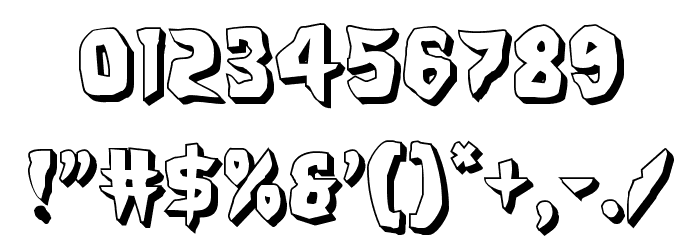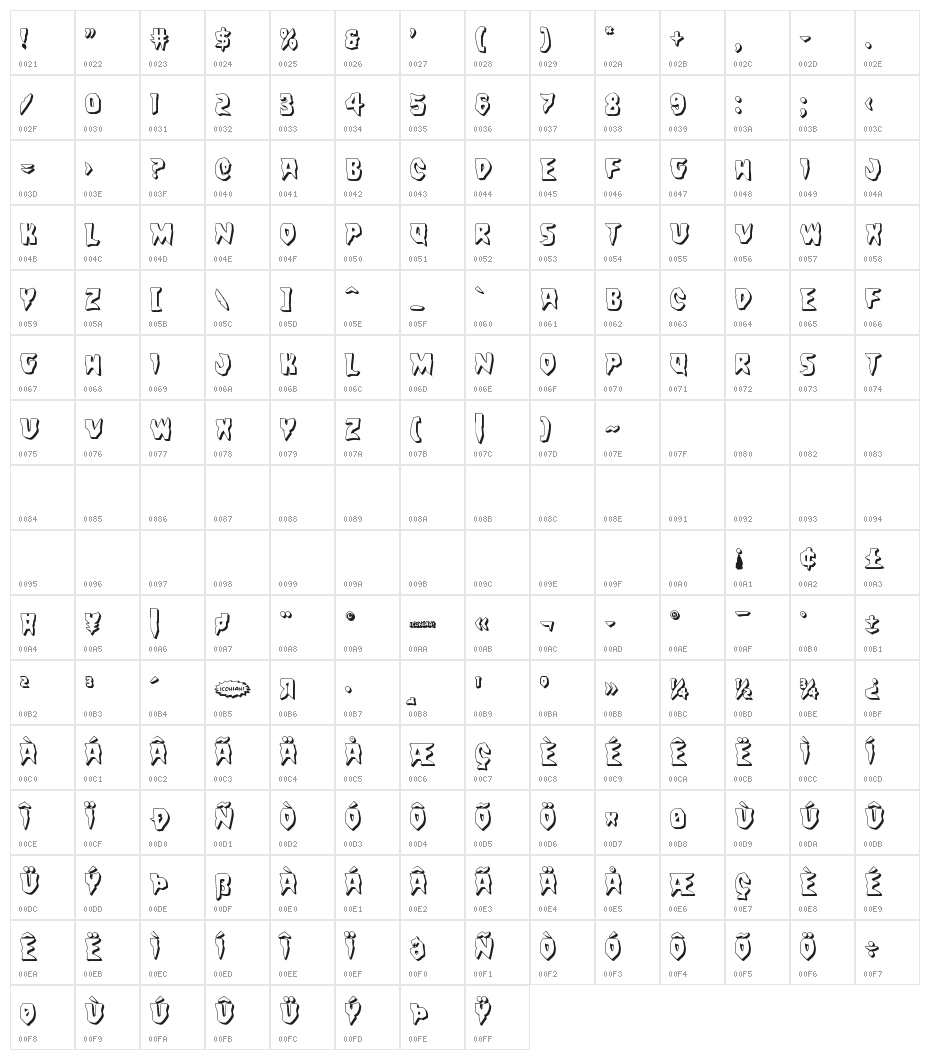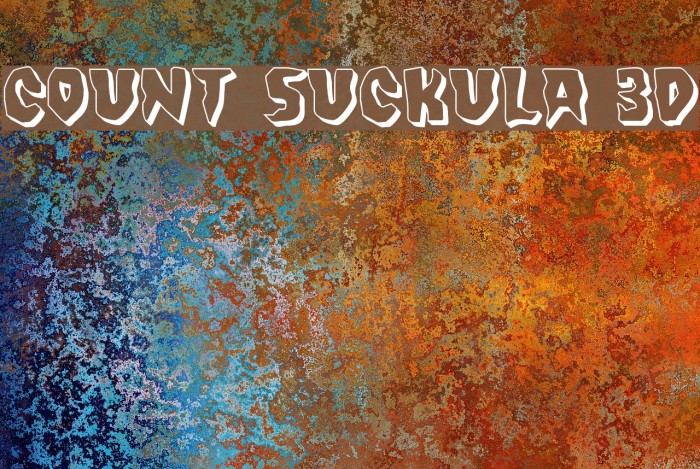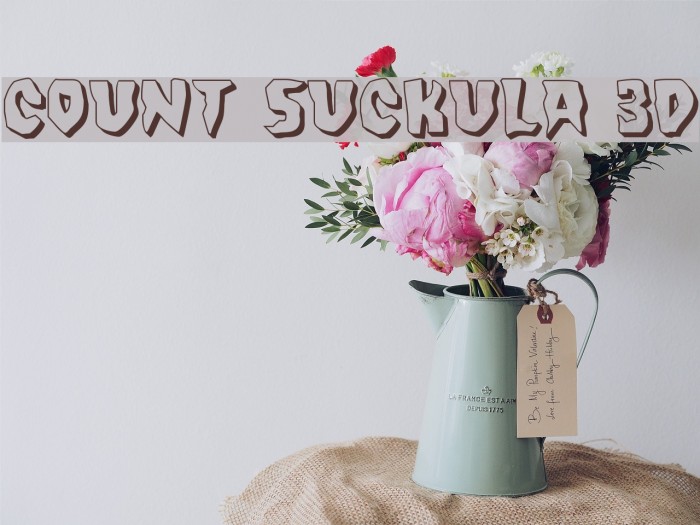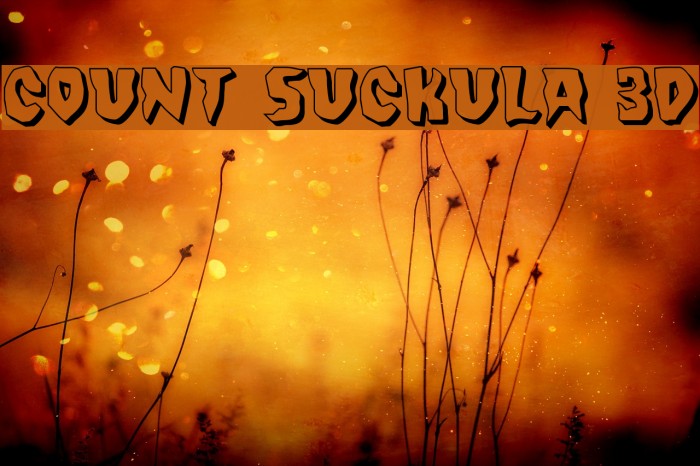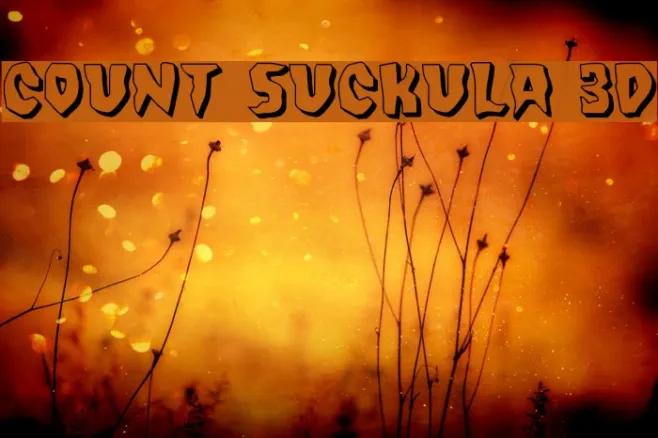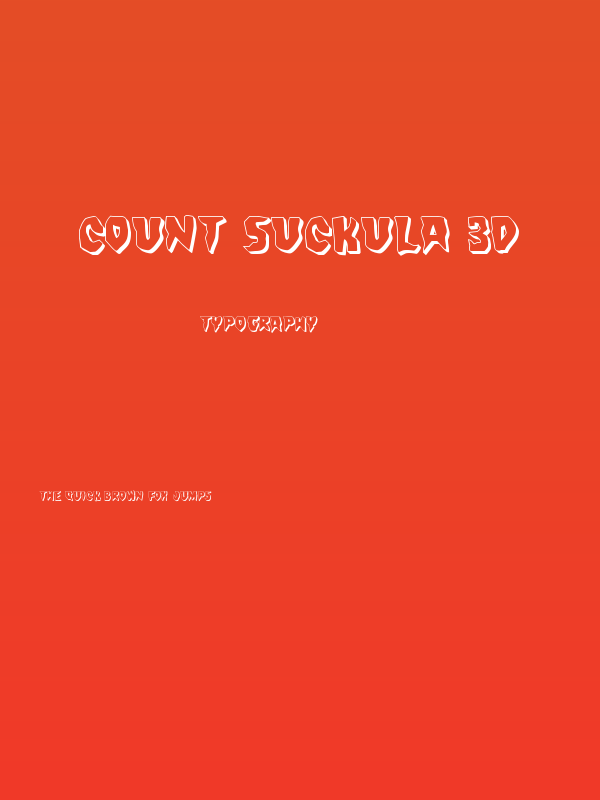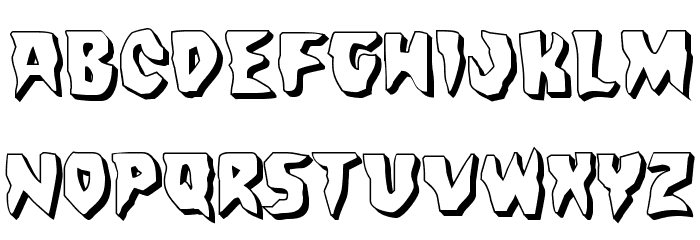
Count Suckula 3D Font
Count Suckula 3D Description
This font features a bold, playful design with a three-dimensional effect that gives each character a shadowed appearance. The letters have a jagged, irregular outline that adds a sense of movement and energy, making it ideal for eye-catching designs. The uppercase and lowercase letters maintain a consistent style, with exaggerated serifs and a slightly gothic flair. The numbers and special characters are equally dynamic, ensuring a cohesive look across all text elements. This font is perfect for projects that require a fun, spooky, or adventurous theme.
Proposed ProjectsIdeal for Halloween-themed designs, comic book titles, children's party invitations, or any project needing a fun and spooky aesthetic.